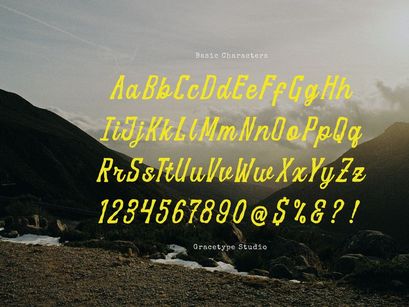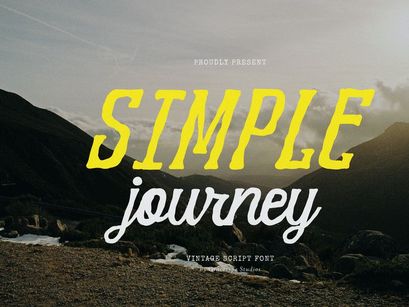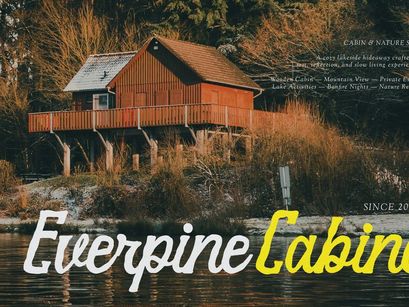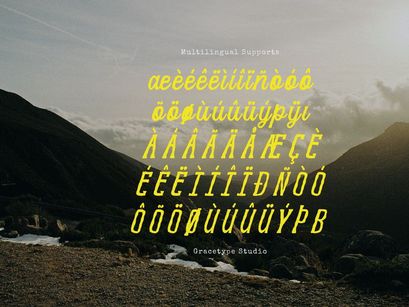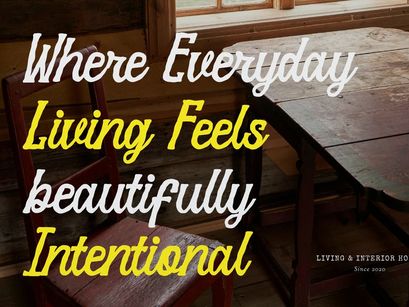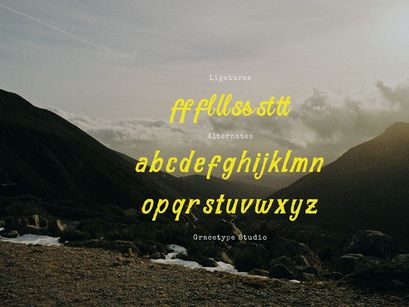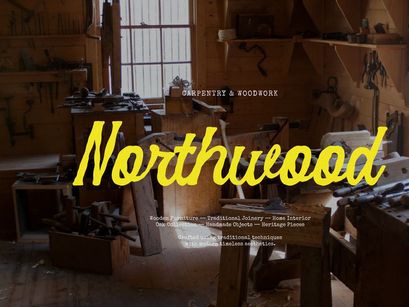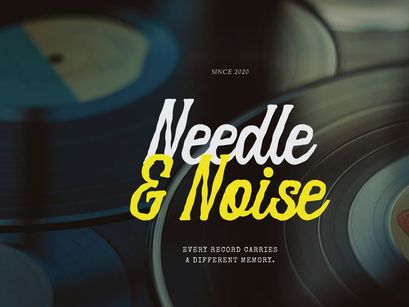
Simple Journey | Vintage Script Font, from Gracetypestudio, suitable for any projects such as: logos, branding projects, homeware designs, product packaging, mugs, quotes, posters, shopping bags, t-shirts, book covers, name card, invitation cards, greeting cards, label, photography, watermark, special events, and all your other lovely projects that need a Script taste.